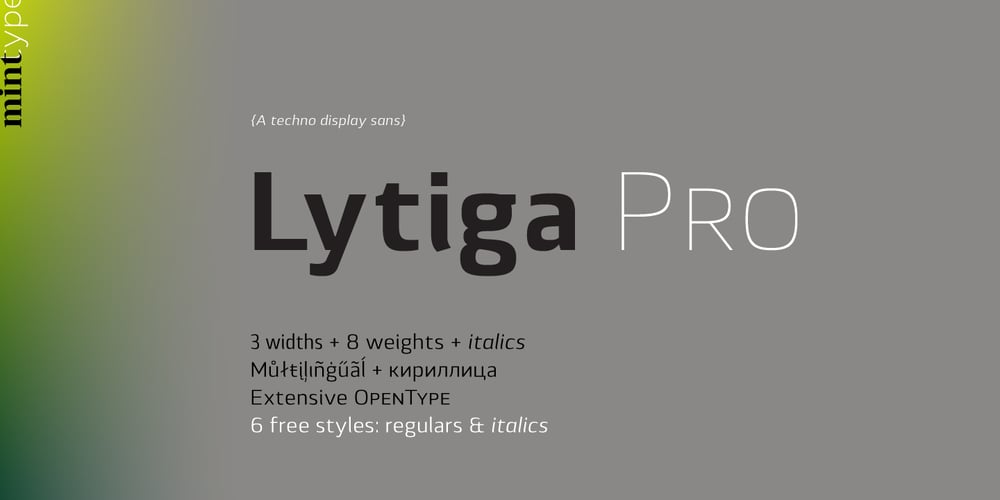
Lytiga Pro Font Family was designed by Andriy Konstantynov and published by Mint Type. Lytiga Pro contains 48 styles and family package options. Lytiga Pro is a modern sans-serif typeface with a pronounced techy feel. The family contains 48 fonts: 8 weights from thin to black, 3 widths, and italics. Each font includes a variety of OpenType features: four sets of digits, superior and inferior digits, slashed zero, and a full set of small caps. Rich language support includes all the main Latin-based languages as well as Cyrillic script. The rhythm and character of the typeface makes it suitable for both display and text use.